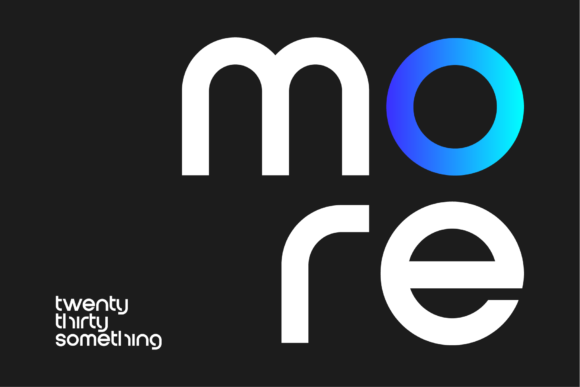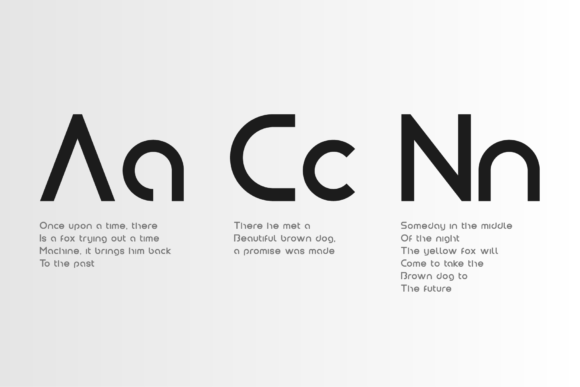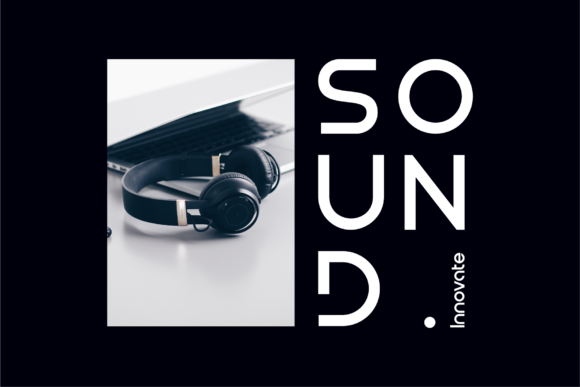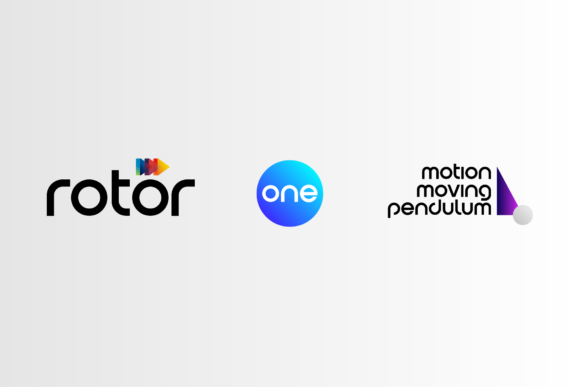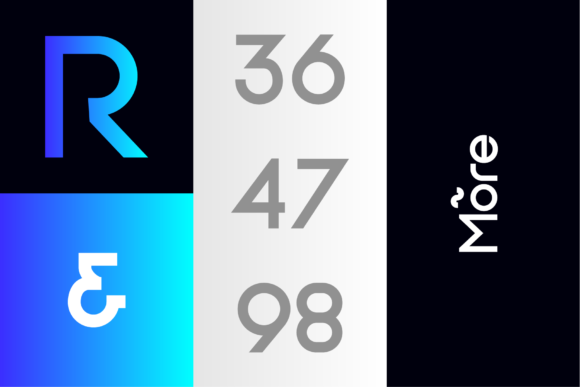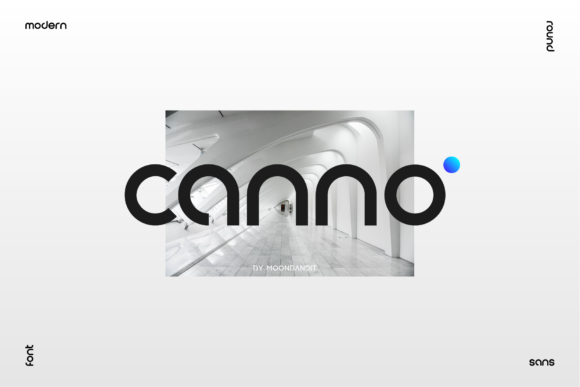
Canno Font: Elevate Your Designs with a Modern Display Font
In the world of typography, fonts play a crucial role in conveying the message and aesthetic of a design. For designers and crafters looking to add a touch of modernity to their projects, Canno Font is an excellent choice. This modern display font boasts a clean and sleek style that is sure to elevate your designs and leave a lasting impression.
What is Canno Font?
Canno Font is a contemporary display font designed to add a modern look and feel to various projects. Its clean and sleek style makes it perfect for designs that require a touch of sophistication and elegance. Whether you’re working on a branding project, a website, or a craft, Canno Font is an excellent choice.
Key Features of Canno Font
• Modern and Sleek Design: Canno Font features a modern and sleek design that is perfect for designs that require a touch of sophistication.
• Clean and Legible: The font is clean and legible, making it easy to read and understand.
• Versatile: Canno Font is versatile and can be used in various projects, including branding, websites, crafts, and more.
• Easily Customizable: The font is easily customizable, allowing you to adjust the size, color, and style to suit your design needs.
Benefits of Using Canno Font
Using Canno Font in your designs comes with several benefits. Some of the advantages of using this modern display font include:
• Enhanced Visual Appeal: Canno Font adds a touch of modernity and sophistication to your designs, making them more visually appealing.
• Improved Readability: The clean and legible design of the font improves readability, making it easier for your audience to understand your message.
• Consistency: Using a consistent font throughout your design helps to create a cohesive look and feel.
• Professionalism: Canno Font gives your designs a professional look and feel, making them more credible and trustworthy.
Tips for Getting the Most Out of Canno Font
Here are some tips for getting the most out of Canno Font:
• Use it for Headings: Canno Font is perfect for headings and titles. Use it to add a touch of modernity and sophistication to your designs.
• Experiment with Colors: Try out different colors and gradients to add depth and visual interest to your designs.
• Mix and Match: Mix and match Canno Font with other fonts to create a unique and visually appealing design.
• Keep it Simple: Don’t overdo it. Keep your design simple and clean to let the font shine.
Canno Font is a modern display font that is perfect for designers and crafters looking to add a touch of sophistication and elegance to their projects. Its clean and sleek style makes it versatile and easy to use. With its numerous benefits and ease of use, Canno Font is an excellent choice for anyone looking to elevate their designs.